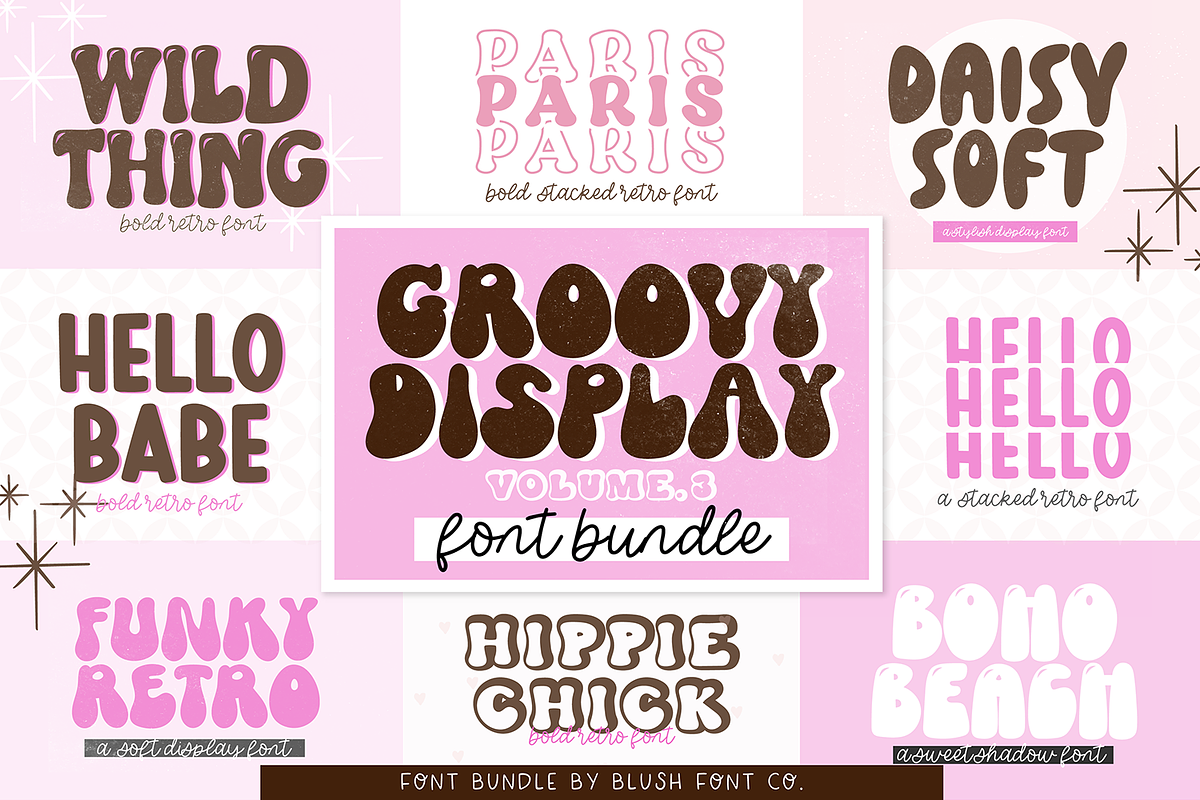
Take your designs to the next level with the GROOVY DISPLAY FONT BUNDLE V3 Free Download. This bundle includes a curated selection of bold, funky, and retro-inspired fonts perfect for creating eye-catching headlines, logos, posters, product packaging, and branding with a nostalgic twist.
The Groovy Display Font Bundle features multiple styles that draw influence from the vibrant typography of the 70s and 80s, offering a playful and energetic vibe. With uppercase and lowercase letters, numbers, punctuation, and multilingual support, these fonts are perfect for testing vibrant and expressive layouts.